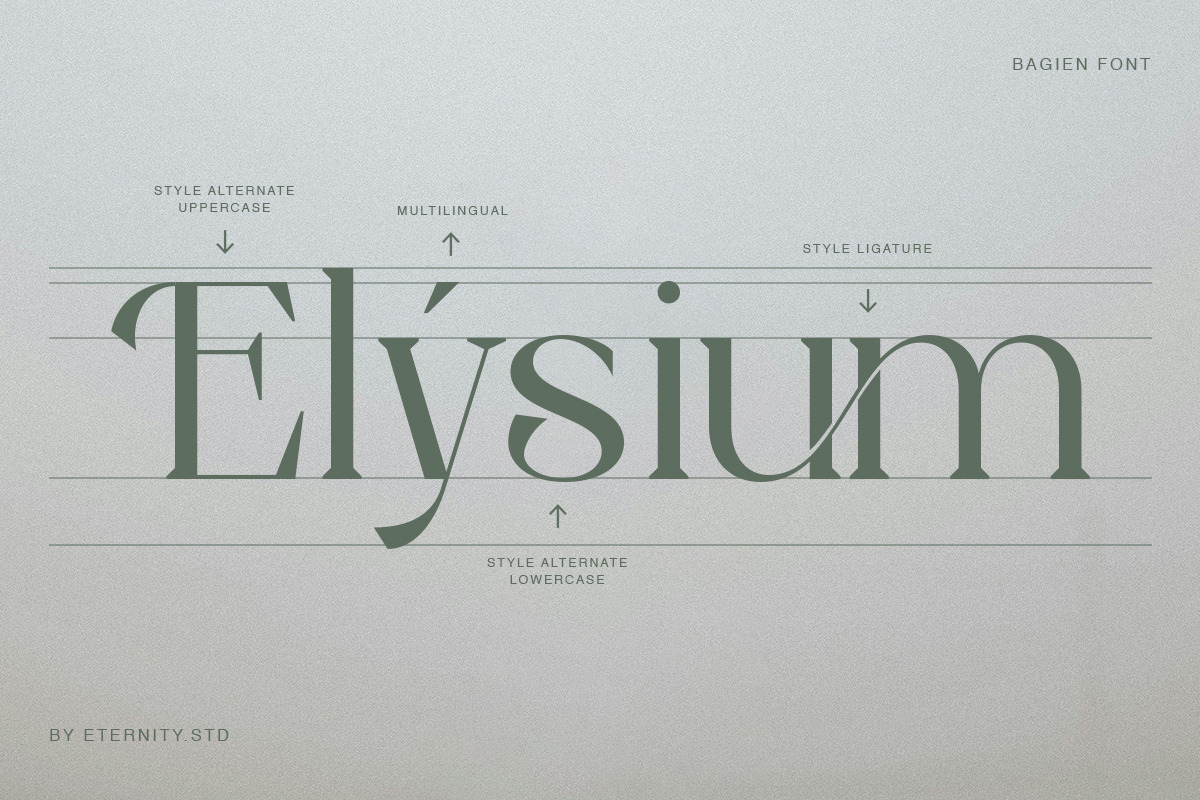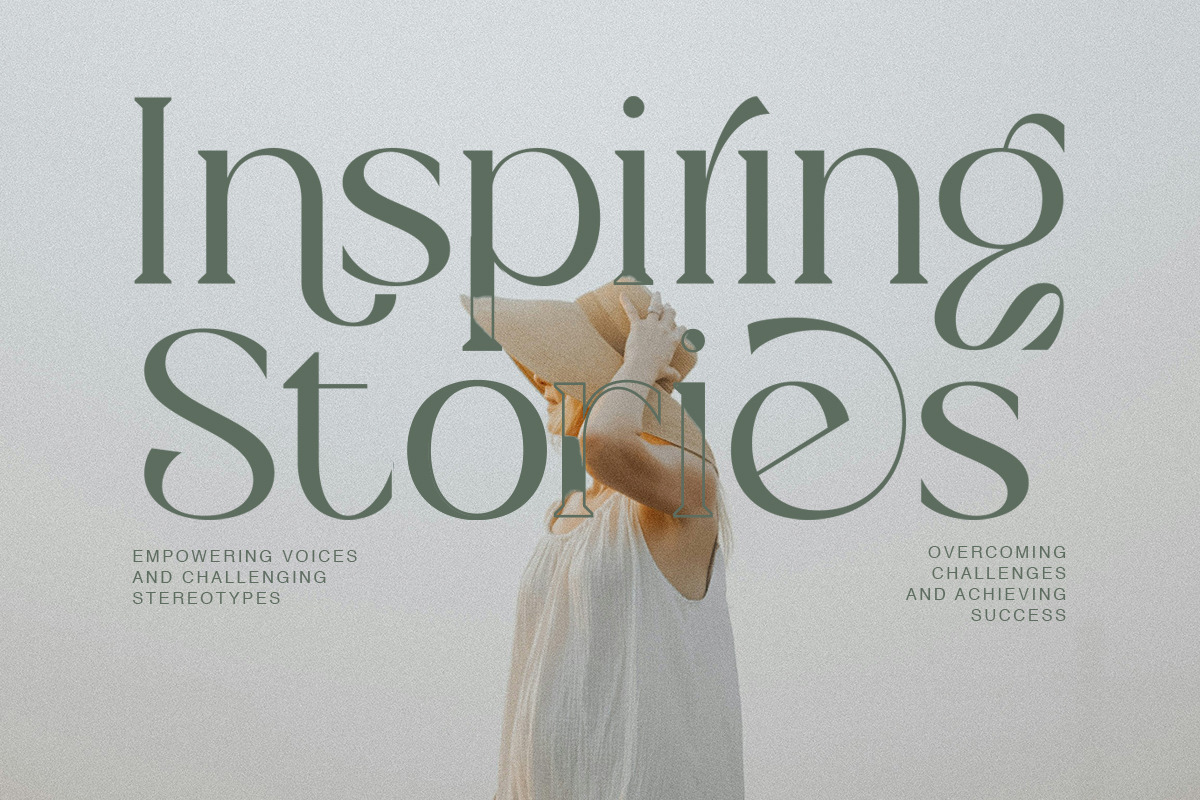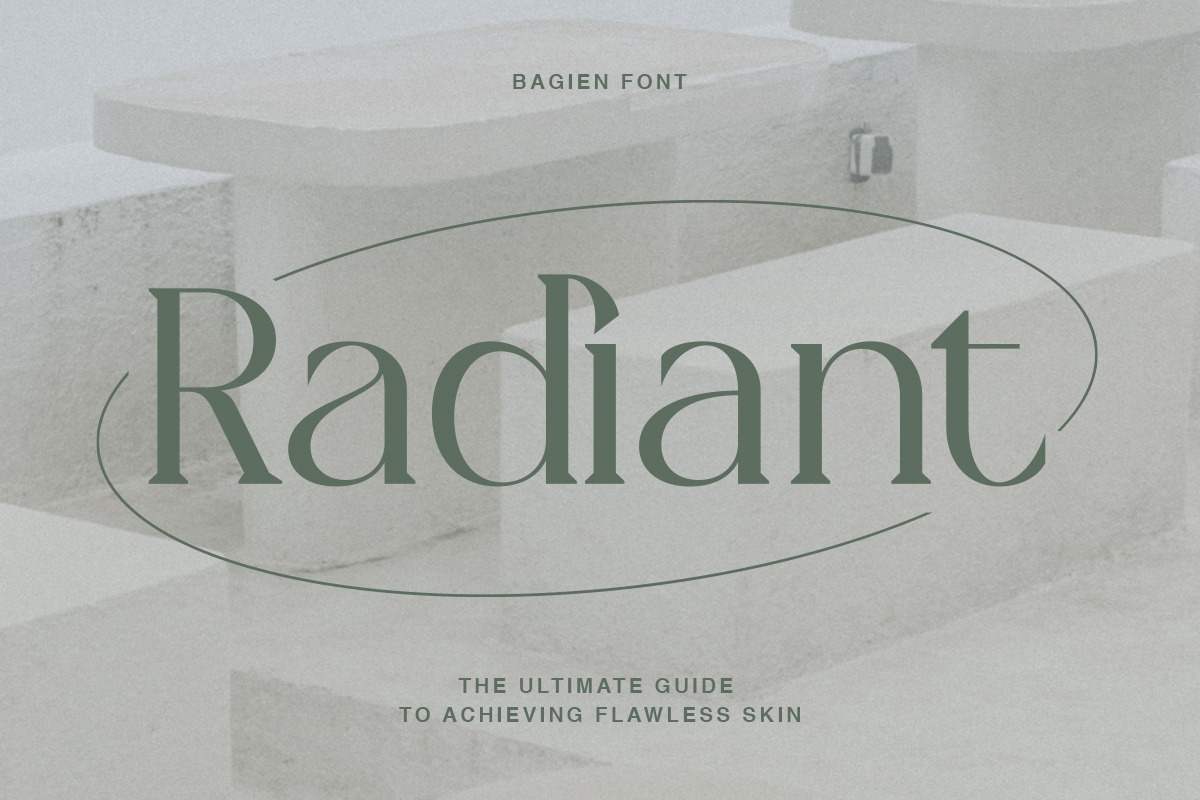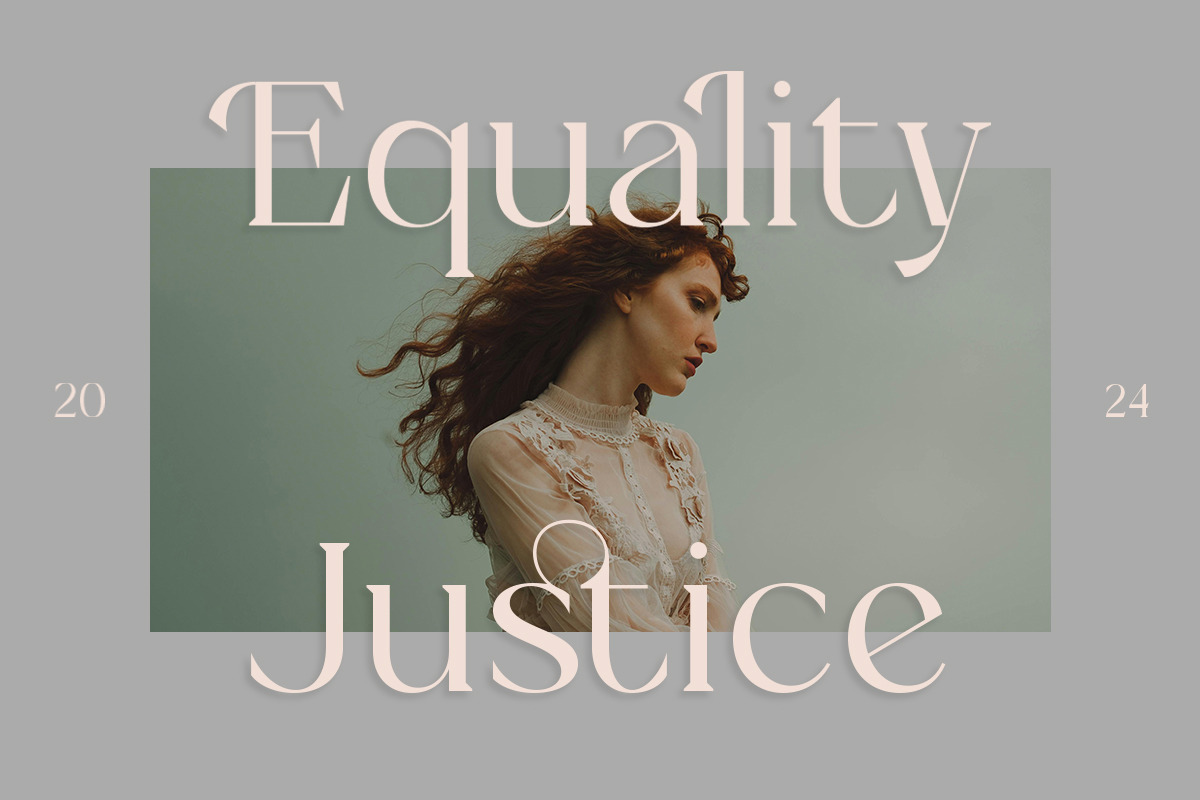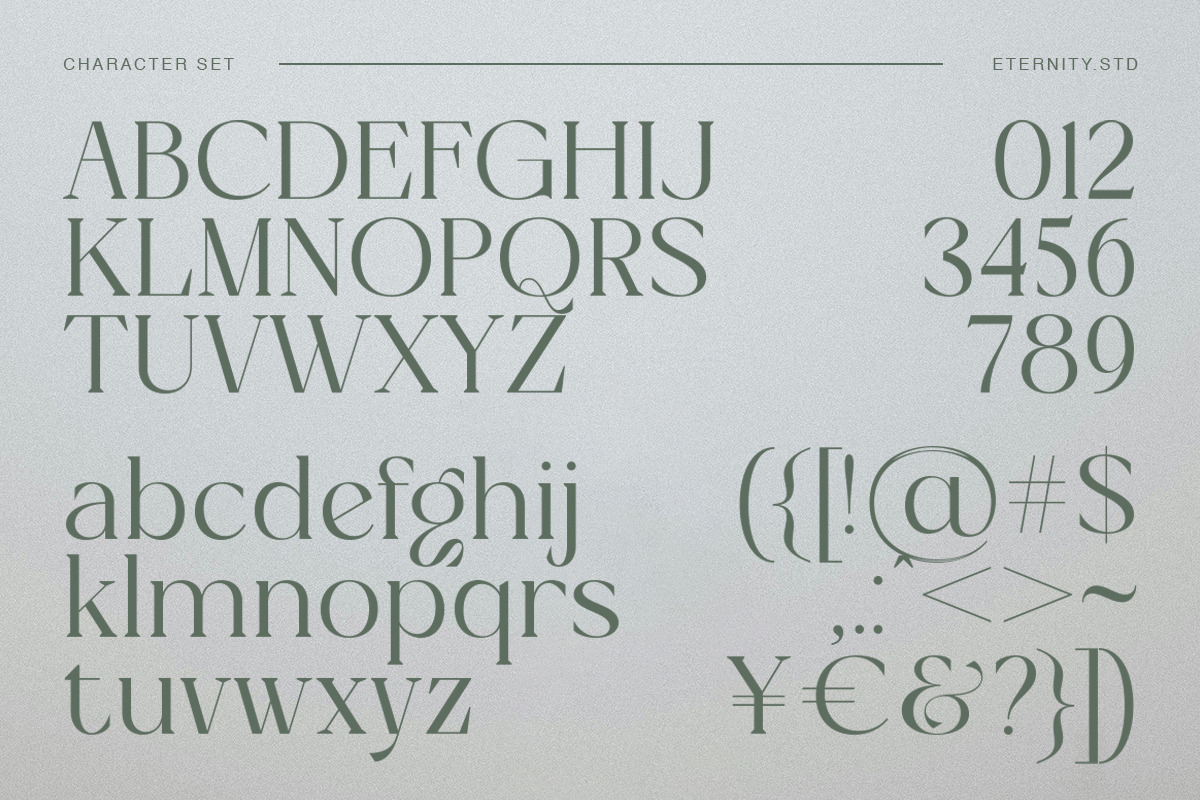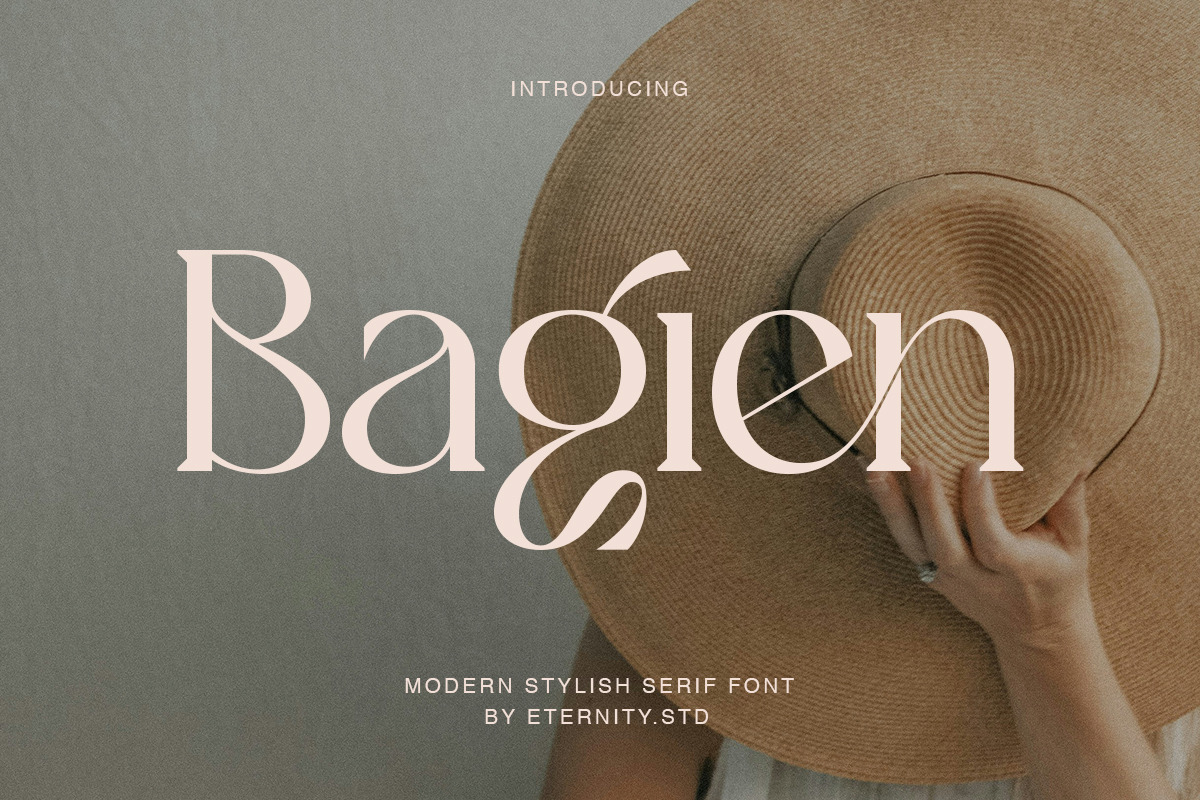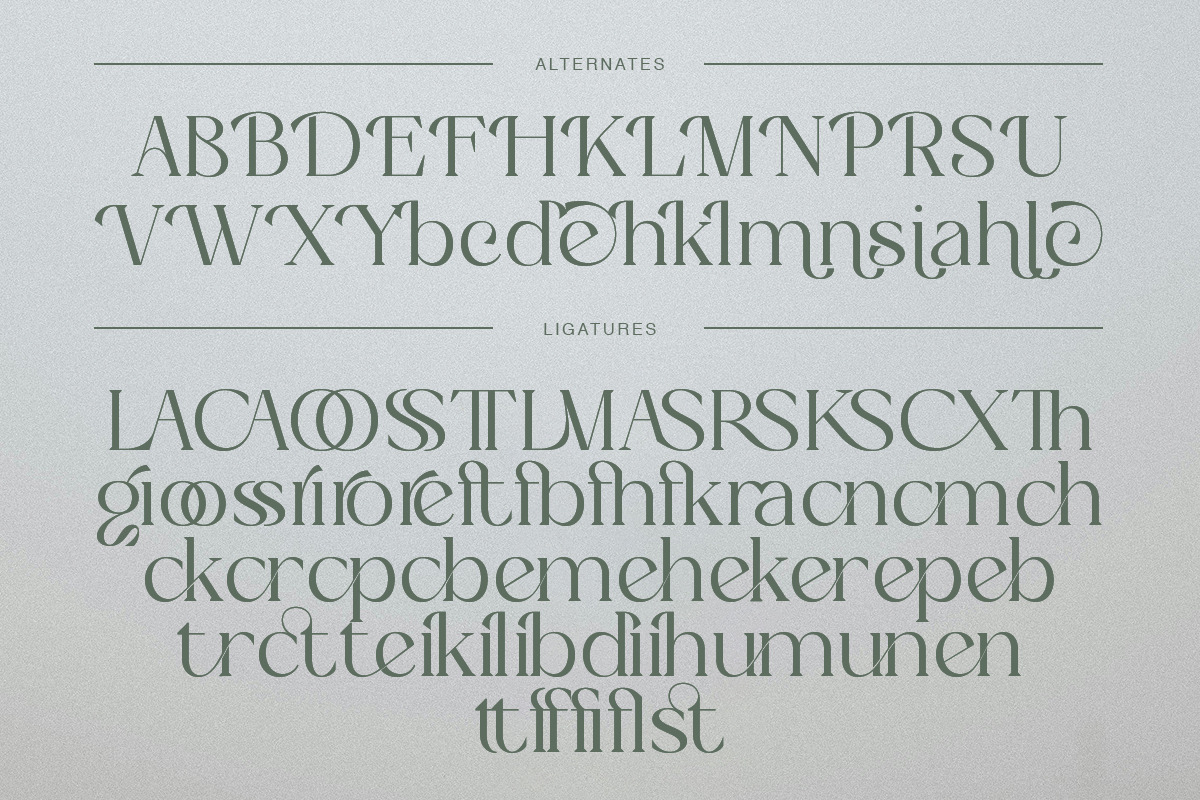
Bagien Modern Stylish Serif Font
Introducing the Bagien Serif Font! Designed to elevate your creative projects with a touch of sophistication, Bagien combines timeless elegance with modern sensibility. Its distinctive alternates and seamless ligatures ensure that each letter flows seamlessly into the next, creating a harmonious visual experience. Whether you're aiming for a refined logo, eye-catching poster, or a polished website interface, Bagien offers versatility that meets every design challenge with grace.
Embrace the essence of Bagien aesthetic and unlock the potential of your designs. From branding to editorial layouts, this font is crafted to stand out while maintaining readability and charm. Elevate your creative output with Bagien today and transform your ideas into captivating visuals that leave a lasting impression.